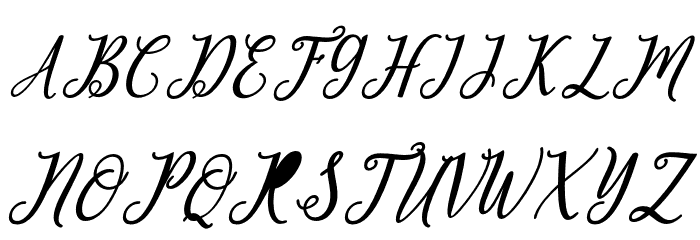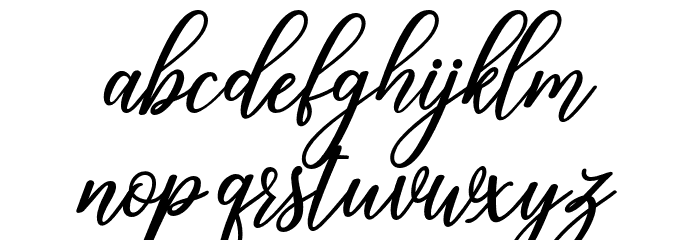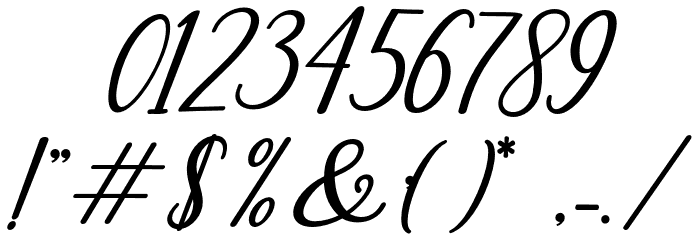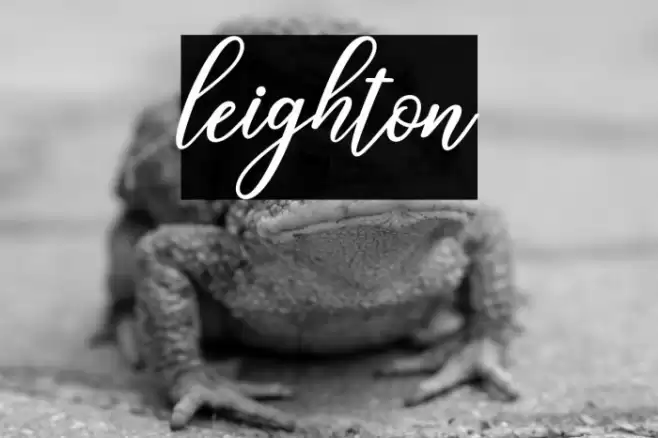
leighton Font
This elegant script font features a flowing, cursive style with a sophisticated flair. The uppercase letters are characterized by sweeping curves and delicate loops, giving them a graceful and refined appearance. The lowercase letters maintain a consistent flow, with smooth connections between characters, enhancing the font's fluidity. The numerals are designed with a similar elegance, ensuring they complement the overall aesthetic. Special characters are thoughtfully crafted to match the font's style, making it versatile for various design needs. The font's overall look is both classic and modern, making it suitable for a wide range of applications.
An elegant script font with flowing, cursive characters and a sophisticated style.
- Proposed Projects: Ideal for wedding invitations, branding, greeting cards, and elegant packaging designs.
- Overall Style: Classic
- Use Case: Logos, Invitations, Decorative text